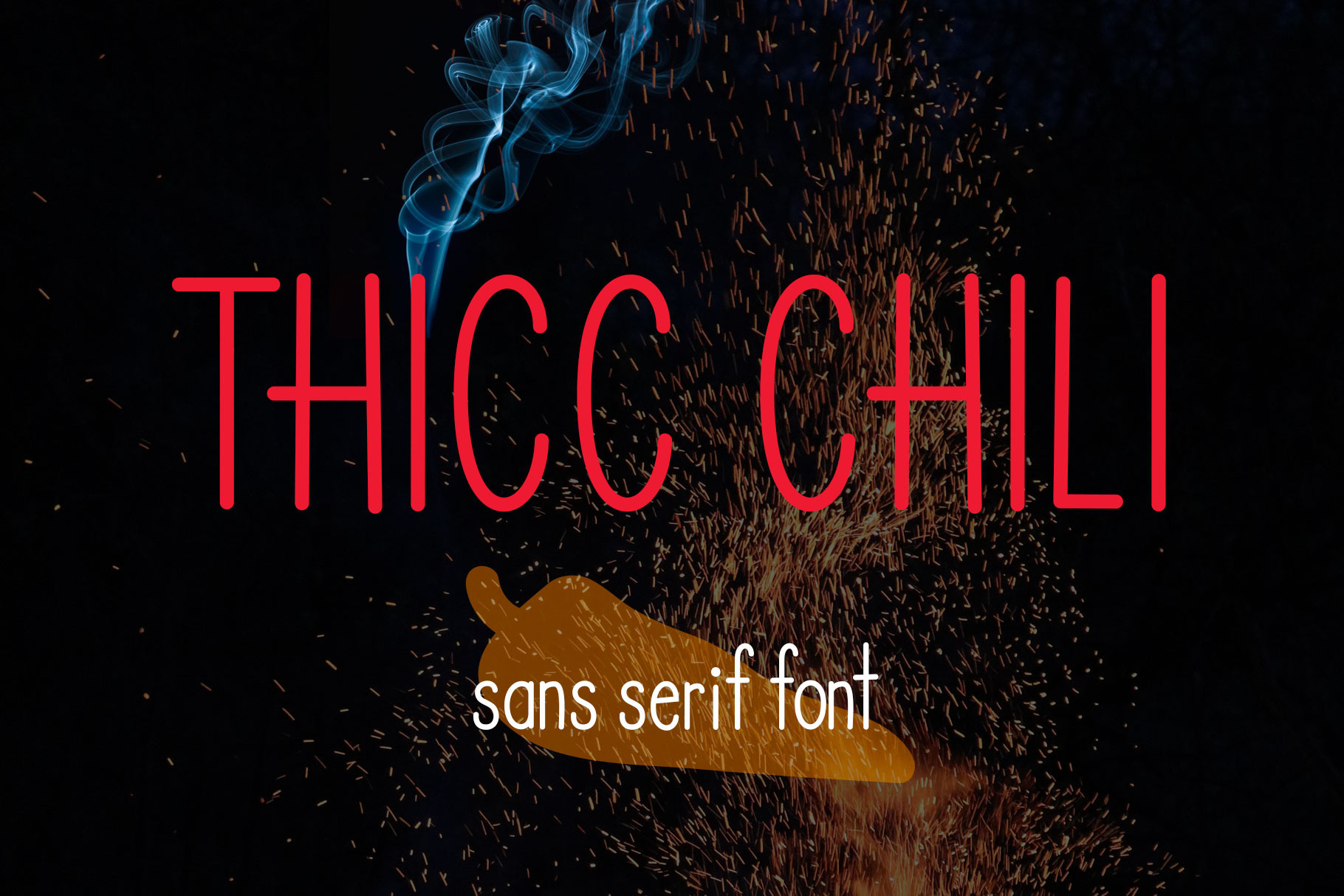
Thicc Chili font
Thicc Chili is a hand-drawn font that's great for display type and body copy! This is the beefier weight of my original: "Skinny Chili" font, also available here. Thicc Chili is a casual sans serif font with clean, crisp lines and some surprise glyphs! More illustrations and art by Phil Scroggs on Instagram @phillustrations.